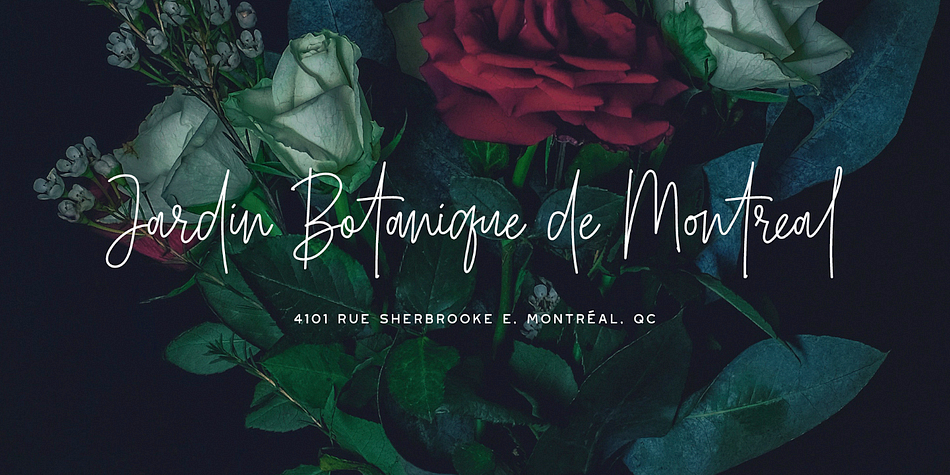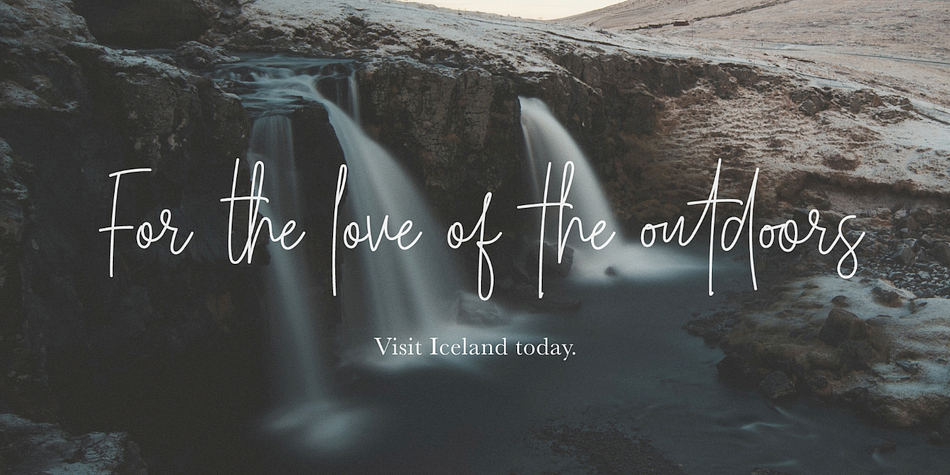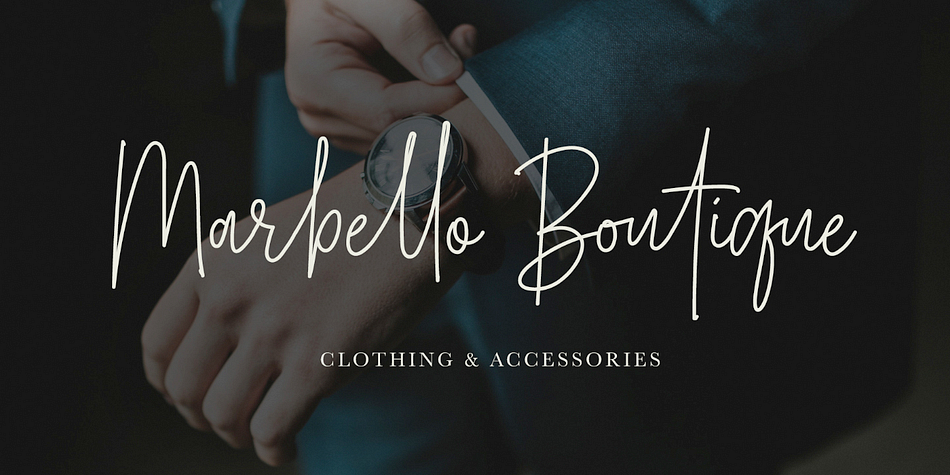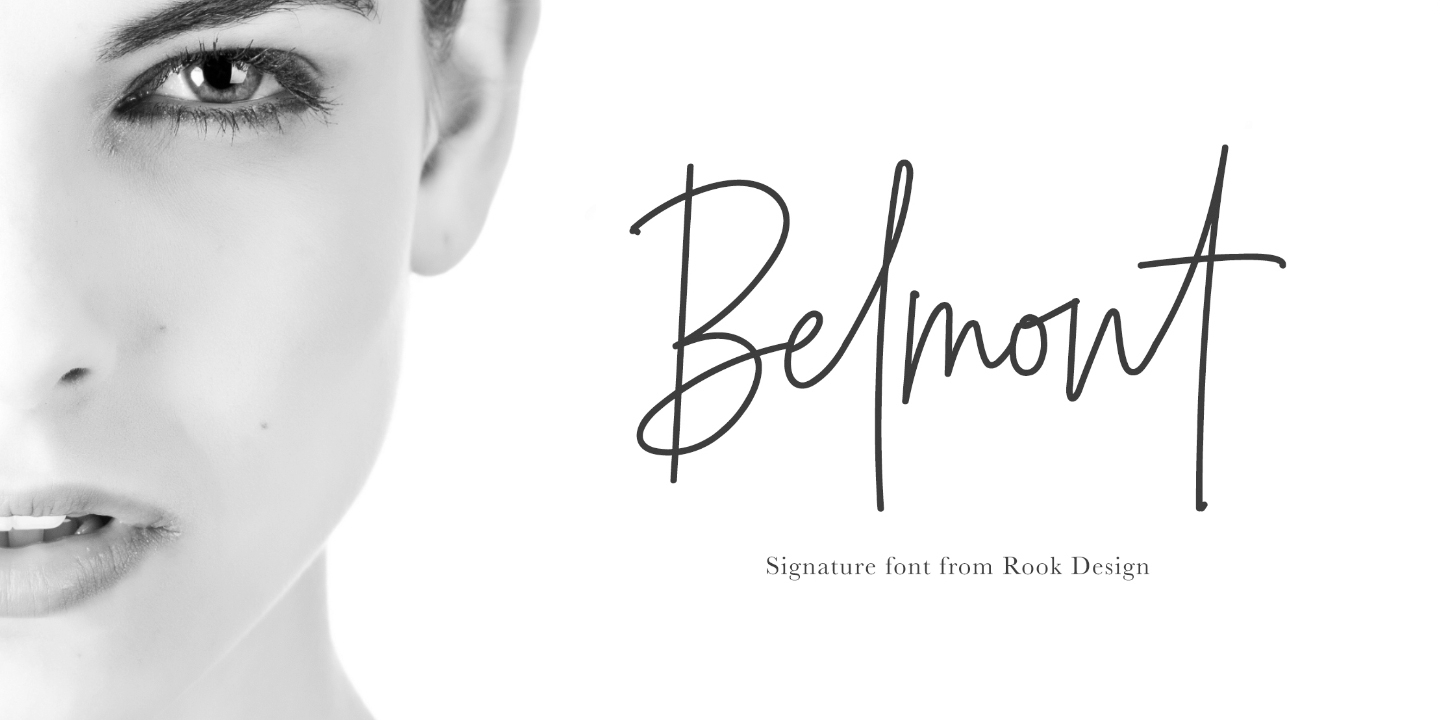
Designed by Greg Nicholls, Belmont is a dingbat and script font family. This typeface has nine styles and was published by Rook Design Supply.
Looking for an elegant font to class up the place? Maybe you have some wedding invitations that you’ve been putting off for a month, because you haven’t found the perfect fit. Maybe you just want to have another awesome font in your design arsenal that makes designing a breeze. Either way, we have just the thing for you!
Introducing the Belmont Script font family
This font family works great for fashion, weddings and other high end applications. Belmont features over 54 ligatures and a full set of alternates which keeps the text very natural looking and gives you tons of variety to work with. Try this font out for signatures, mottos, instagram posts, web banners and much more.